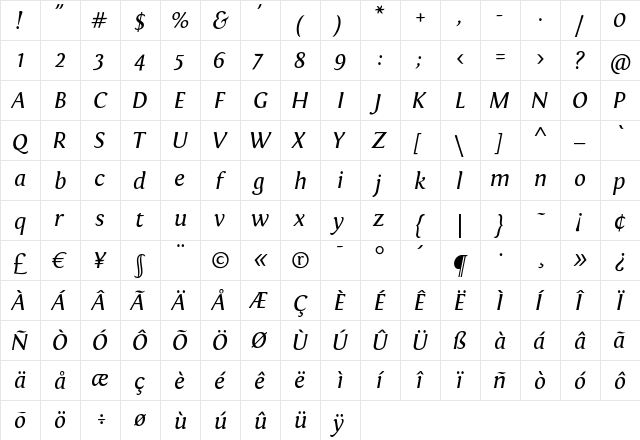
Fontin Italic
Design Context for Fontin Typeface
Fontin offers clean, dependable letterforms without strong stylistic allegiance, making it a practical choice for designers who need flexibility. The slanted form adds forward momentum and visual energy.
Pro Tip: Try Fontin for annotation and caption copy alongside an upright companion — the contrast in angle creates a dynamic but ordered typographic system.